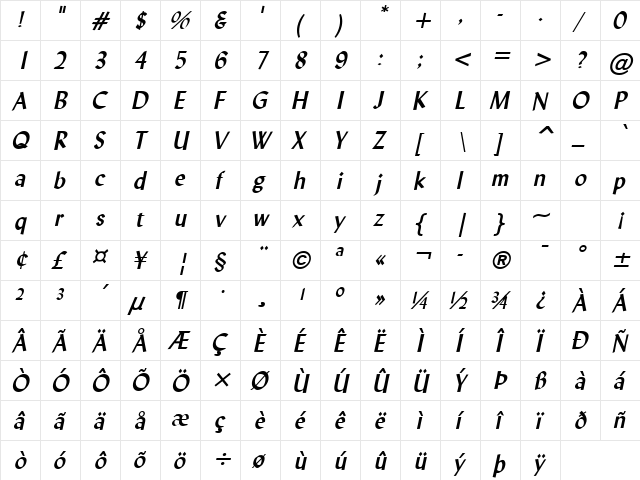
Lynda Bold Italic
Design Context for Lynda Typeface
Lynda is a composed and adaptable typeface that performs quietly and consistently across a wide range of design contexts. Its italic angle brings a sense of urgency and motion to the letterforms. Its bold stroke weight gives it real presence on the page.
Pro Tip: Try Lynda for annotation and caption copy alongside an upright companion — the contrast in angle creates a dynamic but ordered typographic system.